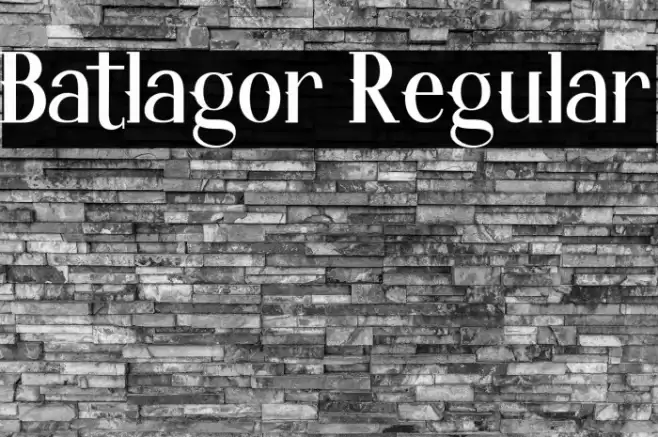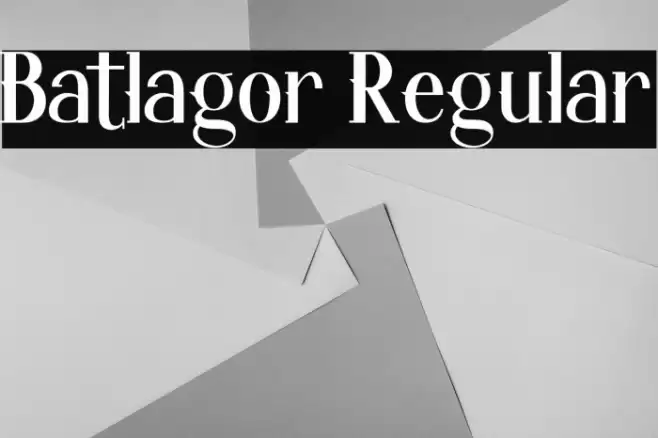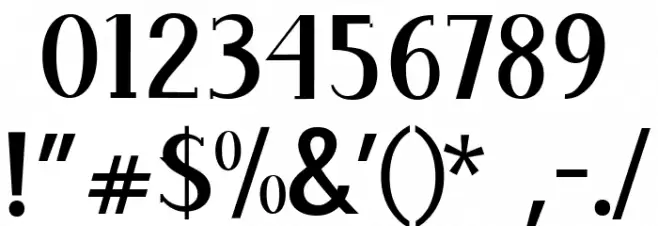
Batlagor Regular Font
Batlagor Regular Description
This font features a bold and elegant design with high contrast between thick and thin strokes, giving it a sophisticated and modern appearance. The serifs are pronounced, adding a touch of classic elegance, while the overall structure remains clean and contemporary. The uppercase letters are tall and commanding, while the lowercase letters maintain a balanced and harmonious flow. The numerals are clear and distinct, making them easily readable. Special characters are well-integrated, maintaining the font's overall aesthetic. This font is versatile, suitable for a range of design projects that require a touch of elegance and readability.
A bold, high-contrast serif font with a modern yet classic appeal from Regular fonts.
- Proposed Projects: Ideal for editorial design, branding, luxury product packaging, and elegant invitations.
- Use Case: Headlines, Logos, Editorial design